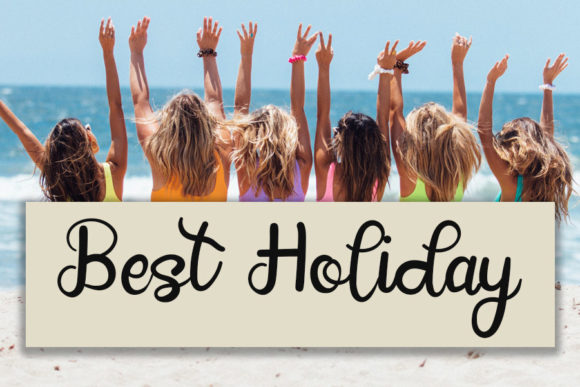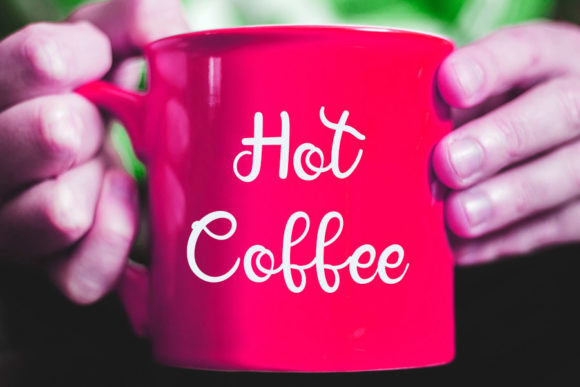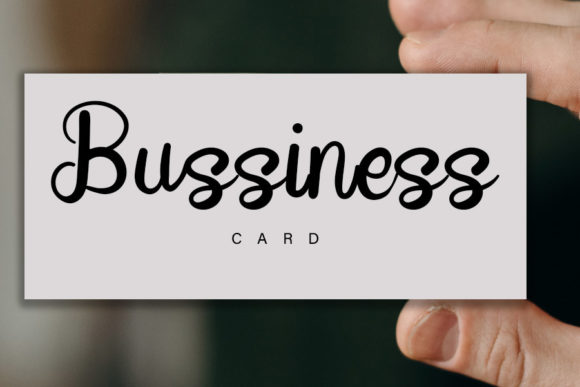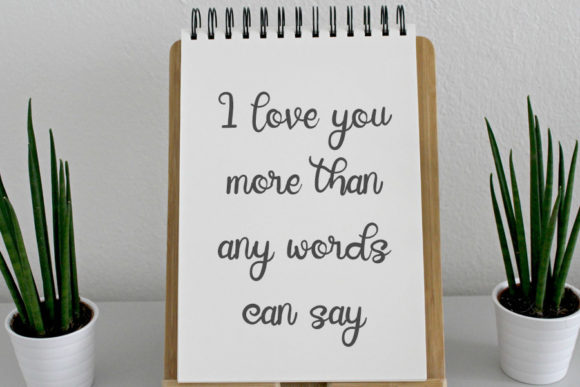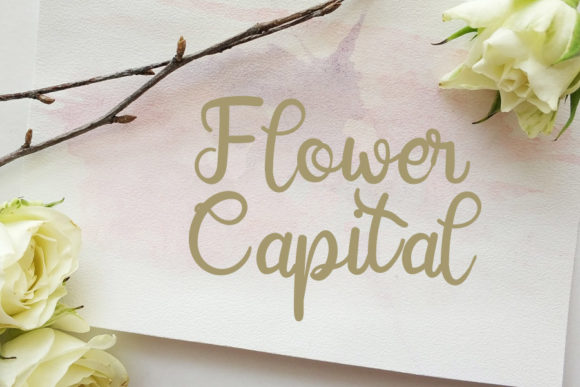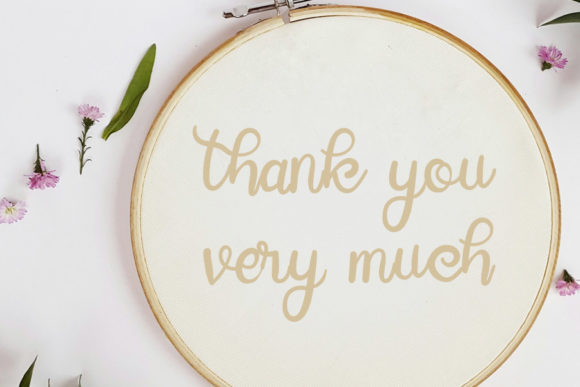
Introducing Brilliant Font: The Epitome of Romantic Elegance
Are you a designer or crafter looking for the perfect font to add a touch of romance and elegance to your designs? Look no further than Brilliant Font, a beautiful handwritten font that exudes dainty and joyful charm. In this article, we’ll dive into the world of Brilliant Font, exploring its features, uses, and benefits, and why it’s the ideal choice for creating stunning wedding invitations, cards, and more.
What is Brilliant Font?
Brilliant Font is a romantic and elegant handwritten font, carefully crafted to bring a touch of sophistication and whimsy to your designs. Its delicate and refined strokes make it perfect for creating beautiful wedding invitations, greeting cards, and other designs that require a personal and intimate feel.
Key Features of Brilliant Font
- Romantic and Elegant: Brilliant Font boasts a romantic and elegant style, perfect for creating designs that require a touch of sophistication and glamour.
- Dainty and Joyful: The font’s dainty and joyful charm makes it ideal for creating designs that are playful, yet refined.
- Handwritten: Brilliant Font is a handwritten font, giving it a personal and unique touch that’s perfect for creating one-of-a-kind designs.
- Versatile: This font is versatile and can be used for a variety of design projects, from wedding invitations to cards, and more.
Uses of Brilliant Font
Brilliant Font is perfect for a wide range of design projects, including:
- Wedding Invitations: Create beautiful and elegant wedding invitations that set the tone for the big day.
- Greeting Cards: Add a personal touch to your greeting cards, making them extra special for birthdays, anniversaries, and more.
- Stationery: Elevate your stationery designs with Brilliant Font, perfect for creating custom notebooks, journals, and more.
- Digital Designs: Use Brilliant Font in your digital designs, such as social media graphics, blog headers, and more.
Benefits of Using Brilliant Font
So, why choose Brilliant Font for your design projects? Here are just a few benefits:
- Unique and Personal: Brilliant Font adds a unique and personal touch to your designs, setting them apart from the rest.
- Customizable: Brilliant Font can be customized to fit your design needs, allowing you to adjust the size, color, and more.
- Time-Saving: With Brilliant Font, you can create stunning designs in no time, saving you time and effort.
Tips for Using Brilliant Font
To get the most out of Brilliant Font, here are a few tips:
- Pair with Other Fonts: Pair Brilliant Font with other fonts to create a unique and visually appealing design.
- Use in Combination with Graphics: Use Brilliant Font in combination with graphics and illustrations to create a stunning design.
In conclusion, Brilliant Font is a beautiful and elegant handwritten font that’s perfect for designers and crafters looking to add a touch of romance and sophistication to their designs. With its dainty and joyful charm, versatility, and ease of use, Brilliant Font is the ideal choice for creating stunning wedding invitations, cards, and more. So why wait? Try Brilliant Font today and take your designs to the next level!